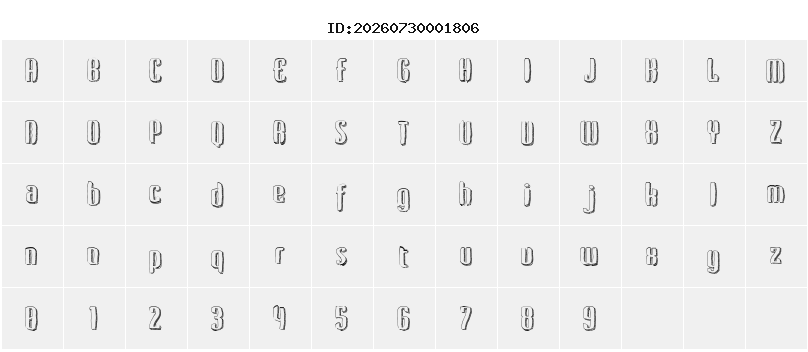
Kerata Preview
• Font Name: Kerata
• Font ID: Beycan Çetin: Kerata: 2009
• Full Font Name: Kerata
• PostScript Name: Kerata
• Designer: Beycan Çetin
• Manufacturer: Beycan Çetin
About Kerata.ttf
Kerata.ttf is a modern, elegant sans-serif font designed for ultimate readability and visual harmony. Perfect for branding, headlines, web design, and print materials.